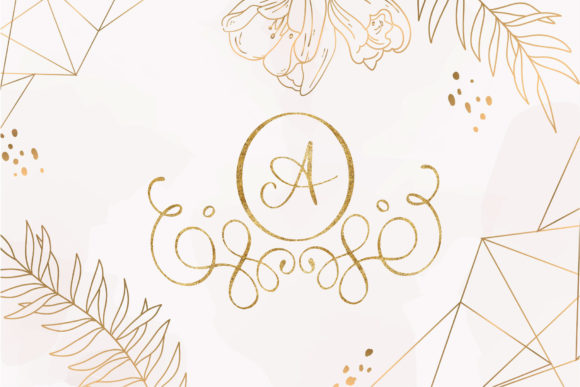
Adding a Touch of Whimsy: The Magic of Hello Monogram Font
Have you ever sat down with a blank sheet of paper, a pen in hand, and a flood of creative ideas bursting to be set free? That’s exactly where the magic happens – when we allow ourselves to get lost in the art of expression. For many designers, the thrill of creating something beautiful lies in the process, not just the end result. And for those who share this passion, a little-known secret can elevate their designs from ordinary to extraordinary.
Enter the Hello Monogram Font, a delicate and enchanting decorative font that brings a touch of romance to any design. Whether you’re crafting love letters, wedding invitations, or simply adding a personal touch to your favorite ideas, this font is sure to leave a lasting impression. For designers, the Hello Monogram Font is a valuable asset, offering a unique and versatile tool to add a dash of whimsy to their work.
Hello Monogram Font Key Features
- Font Style: Script, Monogram
- Character Set: Latin, Cyrillic, Greek, and more (check font documentation for full list)
- Unique Characteristics: Customizable, Hand-drawn, Distressed texture
Hello Monogram Font Review
Hello Monogram Font is a beautifully crafted script font that shines ✨ with elegance and sophistication. Its intricate details and ornate designs make it perfect for creating high-end and luxurious branding materials. The font is also highly versatile and can be used for various applications, from logos and signage to invitations and certificates.
Here are some of the things that I love about Hello Monogram Font:
- ✨ Unique and intricate designs that set it apart from other fonts.
- ✨ High-quality and detailed letterforms that make it perfect for close-up views.
- ✨ Versatile and can be used for a wide range of applications.
- ⚠️ Limited character set, which may require additional font management.
- ⚠️ May not be suitable for body text due to its ornate nature.
- ⚠️ Can be quite heavy and may not be ideal for digital applications.
Overall, I think Hello Monogram Font is a stunning addition to any designer’s toolkit. While it may have some limitations, its unique designs and high-quality letterforms make it a great choice for creating luxurious and high-end branding materials.
Use Hello Monogram Font to add a touch of elegance and sophistication to your designs. It’s perfect for:
Wedding invitations, announcements, and stationery.
Branding and logos for luxury businesses.
Custom quotes, graphics, and social media posts.